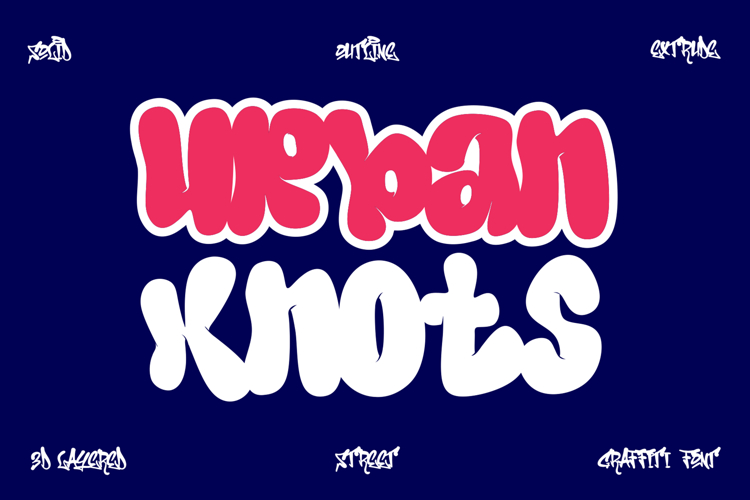
Urban Knots | 3D Chubby Layered Graffiti Font
Urban Knots is an all-caps graffiti font with a bold 3D layered design, featuring Solid, Outline, and Extrude styles. Built to demand attention, this font blends thick, expressive letterforms with the raw energy of street art in a versatile type package.
Whether you're designing a music poster, mural-inspired artwork, album cover, or any project driven by urban culture, Urban Knots delivers a loud, edgy personality that commands attention. The bold, rounded characters remain highly legible even in complex layouts with vivid color palettes.
Urban Knots isn’t just a font—it’s the voice of the streets, filled with attitude, creativity, and rebellion.
- All Caps Only
- 3 Distinct Styles: Solid, Outline, Extrude
- Perfect for street culture, hip-hop themes, poster designs, or graffiti-style art
- Easy layering for dynamic 3D graffiti effects
Let your design speak louder—Urban Knots turns words into street murals.